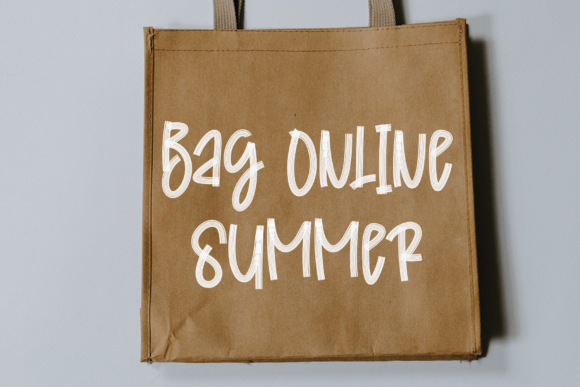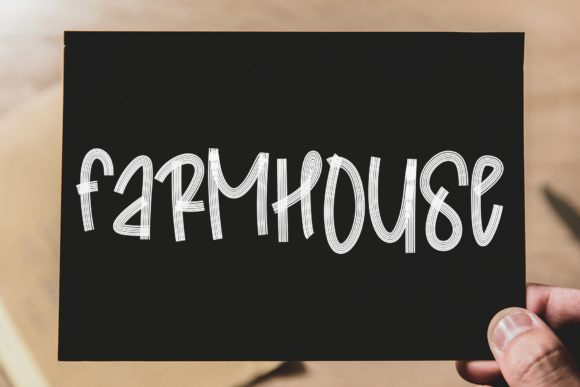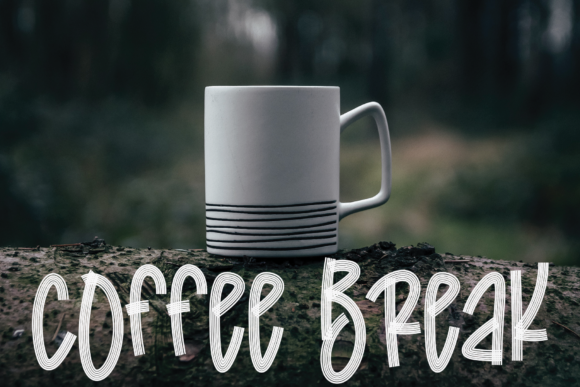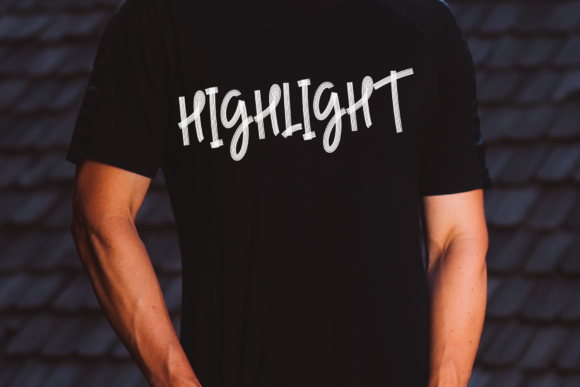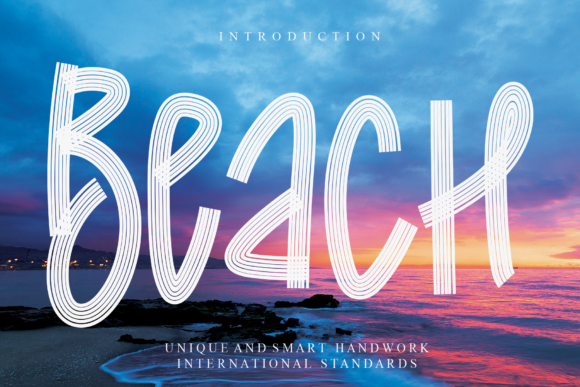
Introducing Beach Font: Elevate Your Designs with a Modern and Casual Touch
Are you tired of using the same old fonts in your designs? Look no further! Beach Font is a modern and casual display font that’s perfect for adding a fresh touch to your creations. With its unique and stylish aesthetic, this font is sure to become a valuable asset in your font library.
The Perfect Font for Any Topic
Whether you’re designing a logo, creating a social media post, or crafting a website, Beach Font is versatile enough to complement any topic. Its modern and casual vibe makes it ideal for a wide range of projects, from fashion and beauty to travel and lifestyle.
What Makes Beach Font Special?
So, what sets Beach Font apart from other fonts? Here are just a few features that make it a standout:
- Modern and casual aesthetic: Beach Font has a fresh and stylish look that’s perfect for designs that need a bit of personality.
- Highly legible: Despite its casual vibe, Beach Font is highly legible, making it perfect for use in a variety of contexts, from headings to body text.
- Versatile: Whether you’re designing for print or digital, Beach Font is adaptable to any medium.
How to Use Beach Font in Your Designs
Beach Font is incredibly easy to use, even if you’re not a seasoned designer. Here are a few tips to get you started:
- Use it as a display font: Beach Font is perfect for use in headings, titles, and other display text.
- Pair it with other fonts: Beach Font pairs well with a variety of other fonts, making it easy to create visually interesting combinations.
- Experiment with different colors: Beach Font looks great in a range of colors, from bright and bold to soft and pastel.
Why Designers and Crafters Love Beach Font
Beach Font has quickly become a favorite among designers and crafters, and it’s easy to see why. Here are just a few reasons why:
- Easy to read: Beach Font is highly legible, making it perfect for use in a variety of contexts.
- Unique and stylish: Beach Font has a fresh and stylish aesthetic that’s sure to make your designs stand out.
- Versatile: Whether you’re designing for print or digital, Beach Font is adaptable to any medium.
Key Features of Beach Font
| Font Style | Modern and casual display font |
| Legibility | Highly legible |
| Versatility | Adaptable to any medium, from print to digital |
| Pairing Options | Pairs well with a variety of other fonts |